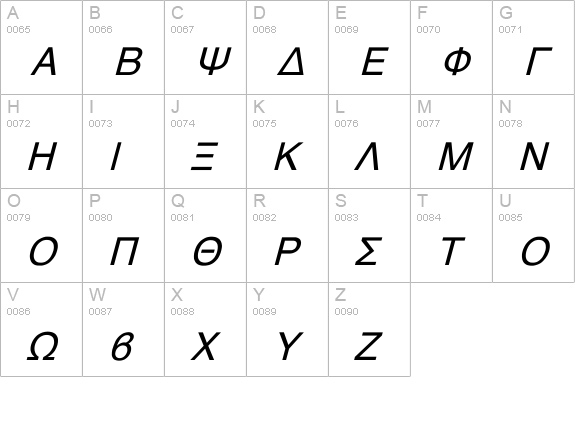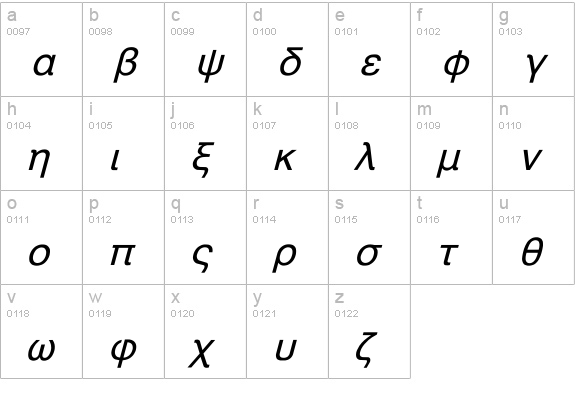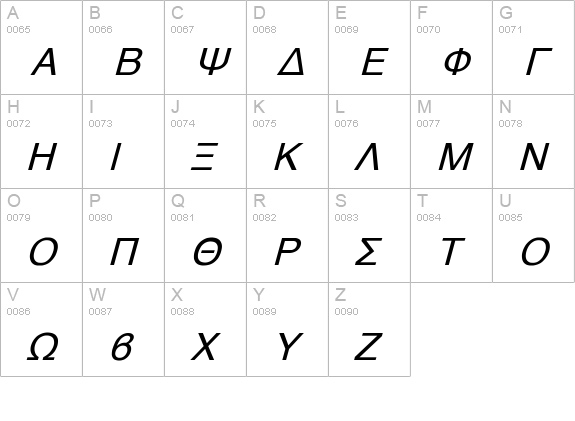
Athens Greek Italic Font Details
Athens Greek Italic is a distinctive, italic variant in the Athens typeface family \xE2\x80\x94 well suited to design and typography projects.
Athens Greek Italic font is a stunning typeface that exudes elegance and sophistication. With its graceful curves and unique Greek-inspired design, this font is perfect for adding a touch of classic style to your projects. The italicized characters add a sense of movement and fluidity, making it ideal for headings, logos, and other design elements. What makes Athens Greek Italic font even more appealing is that it is completely free to download at FontsMarket.com. This means you can easily access this beautiful font and use it in your personal and commercial projects without any cost. Don't miss out on the opportunity to enhance your designs with the timeless beauty of Athens Greek Italic font. Download it today and elevate your creations to new heights of sophistication and style.